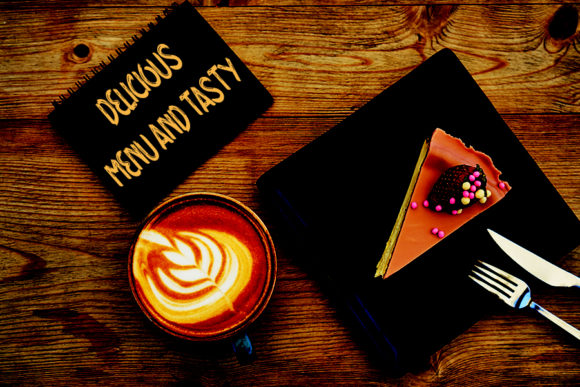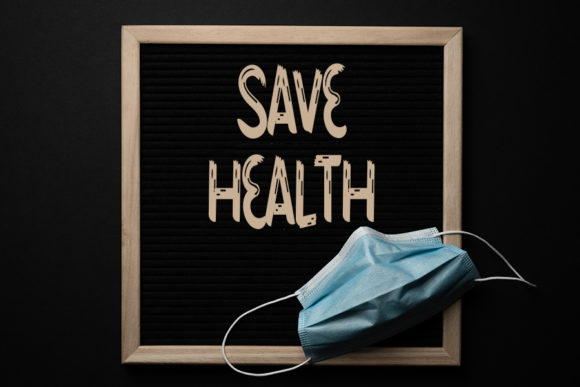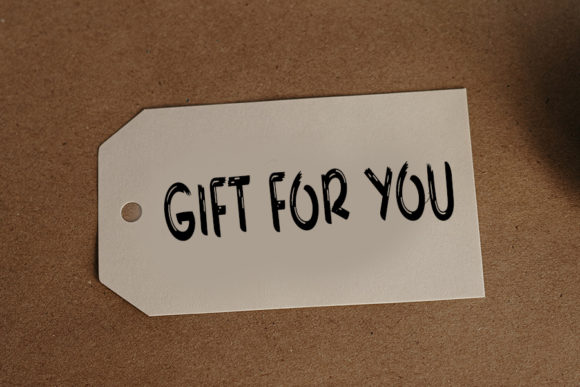
Introducing Handcraft Font: The Perfect Choice for Creative Projects
Are you a designer, crafter, or DIY enthusiast looking for a unique and versatile font to elevate your creative projects? Look no further than Handcraft Font, a fun and casual display font that’s perfect for a wide range of applications. In this article, we’ll explore the features and benefits of Handcraft Font, and show you how it can help take your branding, packaging, and design projects to the next level.
What is Handcraft Font?
Handcraft Font is a carefully crafted display font that’s designed to add a touch of personality and whimsy to your designs. With its playful, hand-drawn aesthetic, this font is ideal for creating eye-catching headlines, titles, and text elements that demand attention. Whether you’re working on a logo, invitation, quote, or product packaging, Handcraft Font is the perfect choice for adding a dash of creativity and flair.
Key Features of Handcraft Font
- Unique and Quirky Design: Handcraft Font boasts a distinctive, hand-drawn design that’s sure to set your projects apart from the crowd.
- Versatile and Adaptable: This font is suitable for a wide range of applications, from branding and packaging to invitations, quotes, and more.
- Easy to Read: Despite its playful aesthetic, Handcraft Font remains clear and easy to read, making it perfect for use in a variety of contexts.
- Scalable and Flexible: Handcraft Font can be used at a range of sizes, from small labels to large posters, without losing its charm or legibility.
Use Cases for Handcraft Font
So, what can you create with Handcraft Font? The possibilities are endless! Here are just a few ideas to get you started:
- Branding and Logos: Use Handcraft Font to create a unique and memorable logo that reflects your brand’s personality.
- Product Packaging: Add a touch of whimsy to your product packaging with Handcraft Font, and make your products stand out on store shelves.
- Invitations and Stationery: Create beautiful, one-of-a-kind invitations and stationery with Handcraft Font, perfect for weddings, parties, and other special occasions.
- Quotes and Posters: Use Handcraft Font to create inspiring quotes and posters that showcase your favorite phrases or lyrics.
- T-Shirts and Merchandise: Add a dash of personality to your t-shirts, mugs, and other merchandise with Handcraft Font.
Why Choose Handcraft Font?
With so many fonts to choose from, why should you choose Handcraft Font for your next project? Here are just a few reasons:
- Unique and Original: Handcraft Font is a one-of-a-kind font that’s sure to set your projects apart from the crowd.
- High-Quality Design: This font is carefully crafted with attention to detail, ensuring a high-quality design that’s both visually appealing and functional.
- Versatile and Adaptable: This font can be used in a wide range of applications, making it a great addition to any designer’s toolkit.